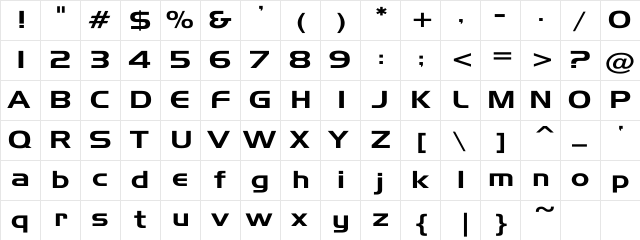
MilkManBOLD Regular
Design Context for MilkManBOLD
MilkManBOLD is a composed and adaptable typeface that performs quietly and consistently across a wide range of design contexts. Its bold stroke weight gives it real presence on the page.